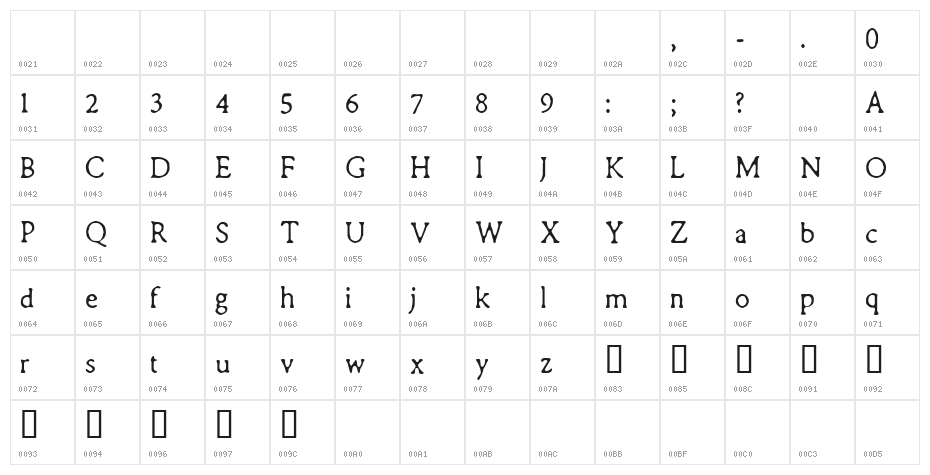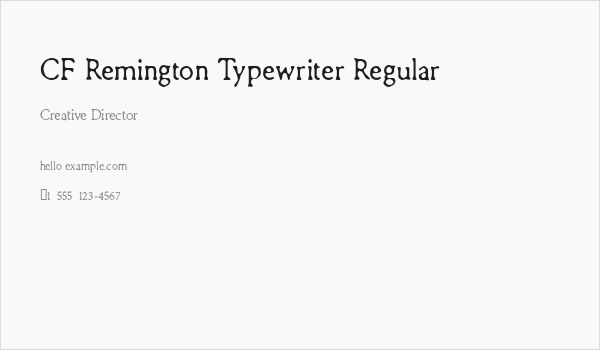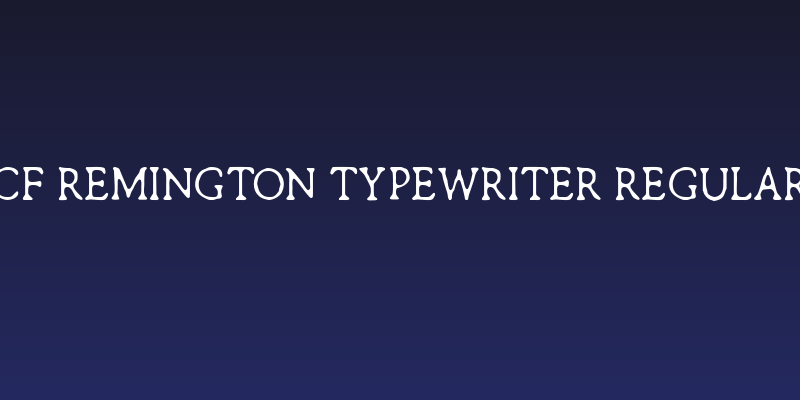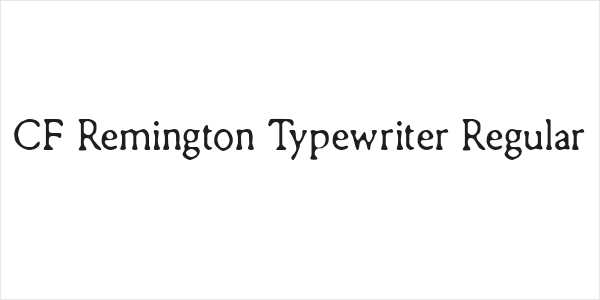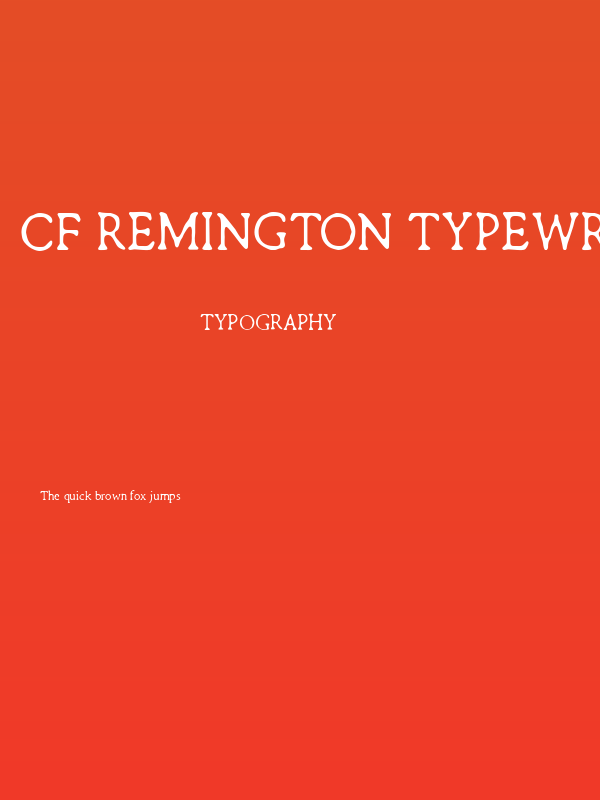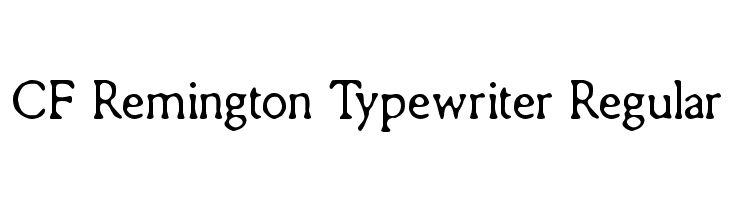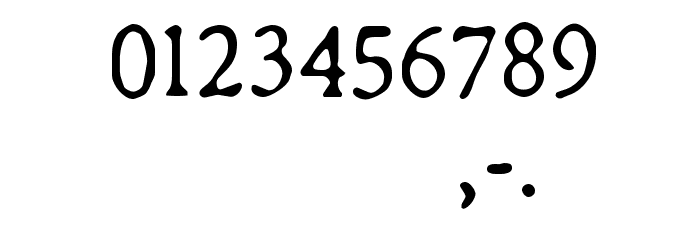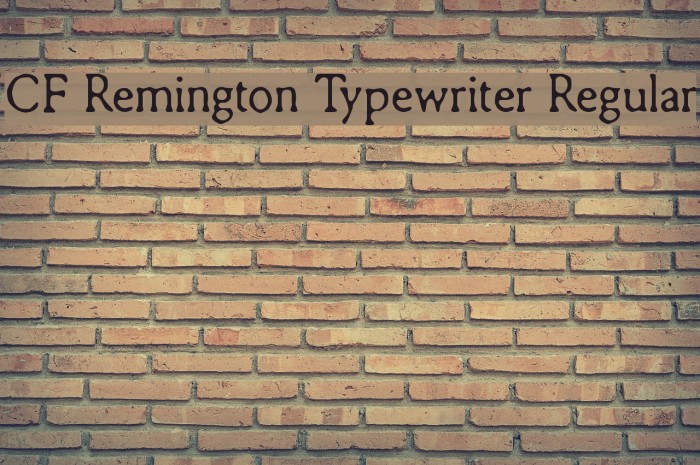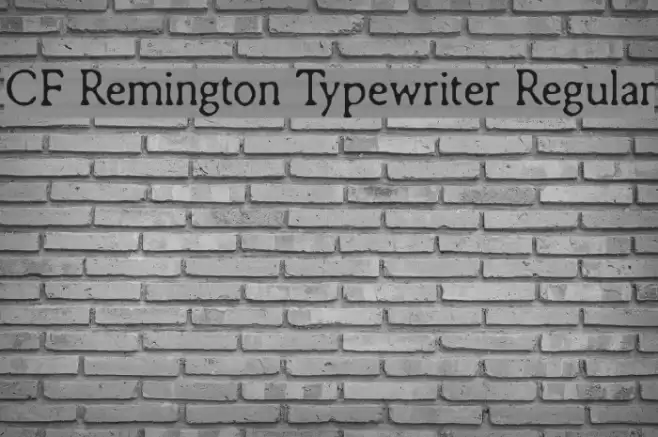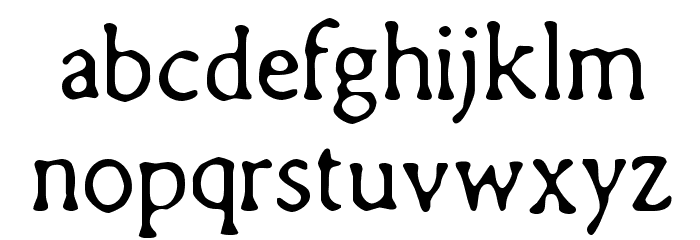
CF Remington Typewriter Regular Font
CF Remington Typewriter Regular Description
This font exudes a vintage charm reminiscent of classic typewriter styles. The characters are bold and slightly irregular, giving them a handcrafted feel. The serifs are pronounced, adding to the retro aesthetic. Each letter has a distinct personality, with varying stroke widths that create a dynamic visual rhythm. The numbers and punctuation marks maintain the same vintage style, ensuring consistency across all characters. This font is perfect for projects that require a touch of nostalgia or a retro vibe, making it ideal for creative designs that want to evoke a sense of history and authenticity.
| Overall Style | Vintage |
| Use Case | Headlines, Logos, Decorative text |
| Proposed Projects | Ideal for retro-themed designs, vintage posters, book covers, and branding that seeks a nostalgic touch. |